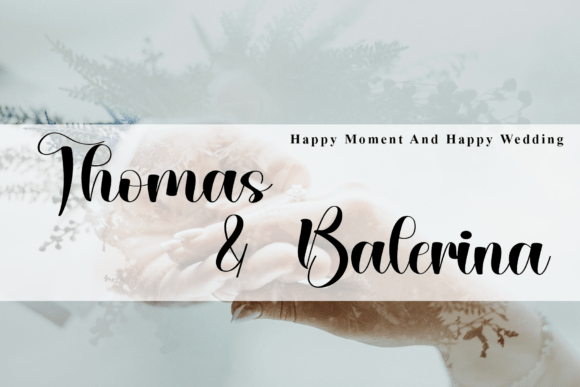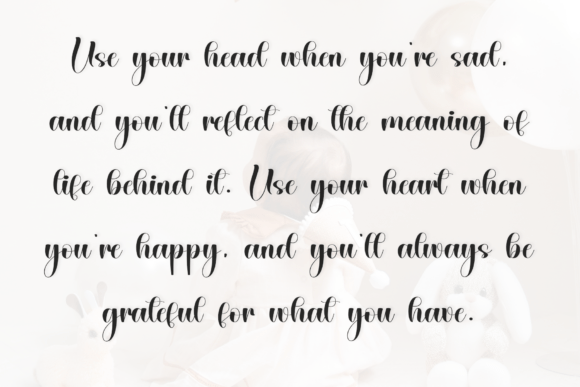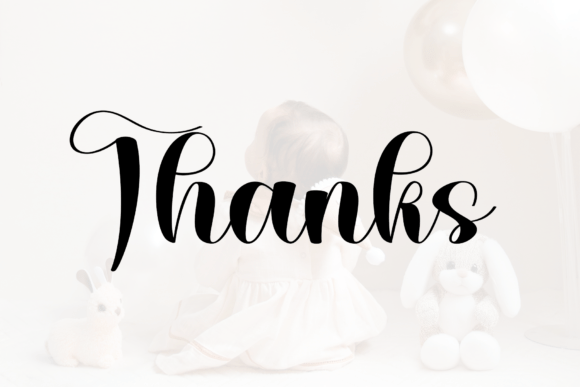
Baby Birthday Font: Elevate Your Designs with Elegance and Sophistication
Are you looking for a font that exudes luxury, romance, and sophistication? Look no further than the Baby Birthday font, an elegant modern script that is perfect for a variety of design projects. With its refined and dynamic character, this font is ideal for wedding invitations, branding, fashion, and editorial design.
A Sophisticated Handwritten Style
Baby Birthday is a beautifully crafted script font that features long, fluid ascenders and descenders, delicate swashes, and graceful ligatures. These design elements work together to create a sense of motion and luxury, making it perfect for designs that require a touch of elegance. The contrast between thick and thin strokes gives the font a refined and dynamic character, making it stand out from other script fonts.
Versatility and Legibility
One of the key benefits of the Baby Birthday font is its versatility. It can be used across both print and digital media, making it a great choice for designers who need to create a cohesive brand identity. The font’s calligraphic charm and flowing curves evoke a sense of romance and exploration, while its high legibility ensures that it remains professional and polished.
PUA Encoding for Seamless Access
Baby Birthday font supports PUA (Private Use Area) encoding, which provides seamless access to its full library of stylistic features. This means that designers can easily access the font’s swashes, ligatures, and other features, making it easy to create unique and customized designs.
Baby Birthday font is perfect for designers and crafters who are looking to add a touch of elegance and sophistication to their designs. Whether you’re creating wedding invitations, branding materials, or editorial content, this font is sure to impress. Its refined and dynamic character makes it a great choice for a variety of design projects, from luxury brands to high-end fashion publications.
Key Features of Baby Birthday Font
- Elegant modern script with a sophisticated handwritten style
- Long, fluid ascenders and descenders, delicate swashes, and graceful ligatures
- Contrast between thick and thin strokes gives the font a refined and dynamic character
- Ideal for wedding invitations, branding, fashion, and editorial design
- Supports PUA encoding for seamless access to stylistic features
- High legibility and professional polish across both print and digital media
Tips for Using Baby Birthday Font
Here are a few tips for using Baby Birthday font in your designs:
- Use it as a headline font to add a touch of elegance and sophistication
- Pair it with a sans-serif font for a modern and contrasting look
- Experiment with different swashes and ligatures to create a unique and customized design
- Use it for body text to add a touch of luxury and refinement
In conclusion, Baby Birthday font is a beautiful and elegant script font that is perfect for designers and crafters who are looking to add a touch of luxury and sophistication to their designs. With its refined and dynamic character, high legibility, and seamless access to stylistic features, this font is sure to impress. Whether you’re creating wedding invitations, branding materials, or editorial content, Baby Birthday font is a great choice for any design project.